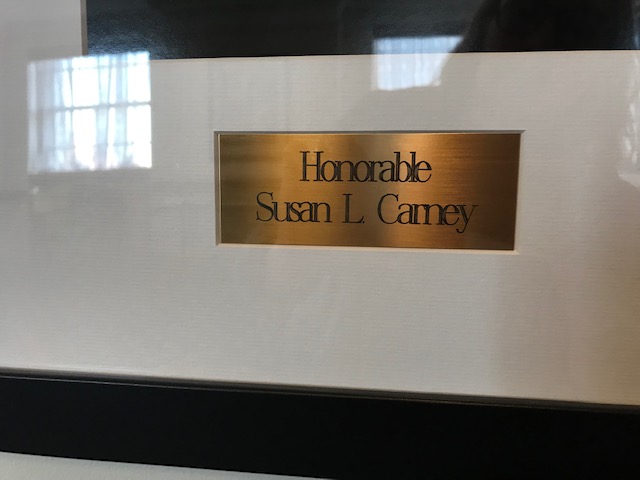
Please help me identify, it was produced on an engraving machine if that helps.
I would start a search with Computer Modern or Scotch Modern and expand from there. They aren’t the face, but they are close. The engraving machine is limited on how it can cut the letters, even these that are overlapping.